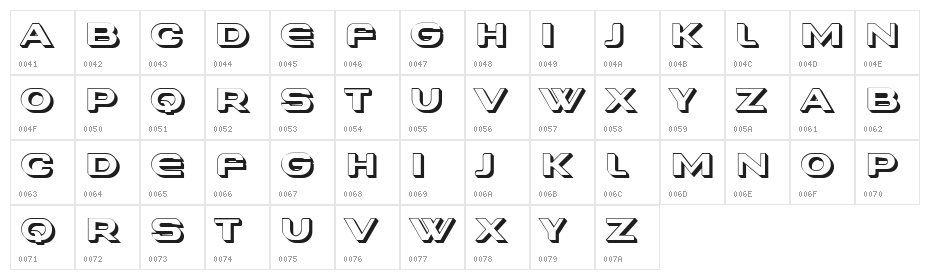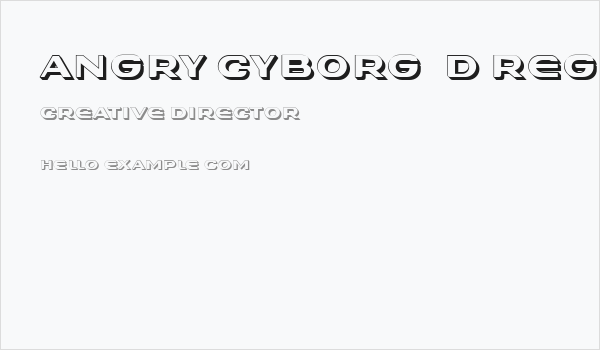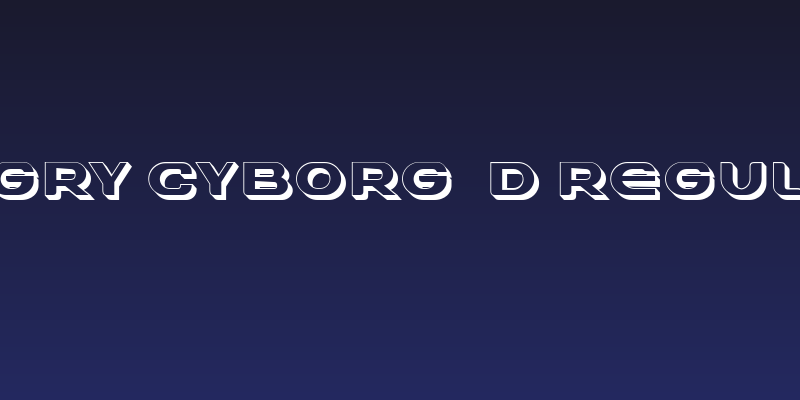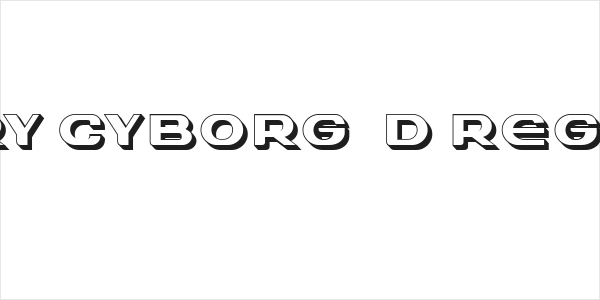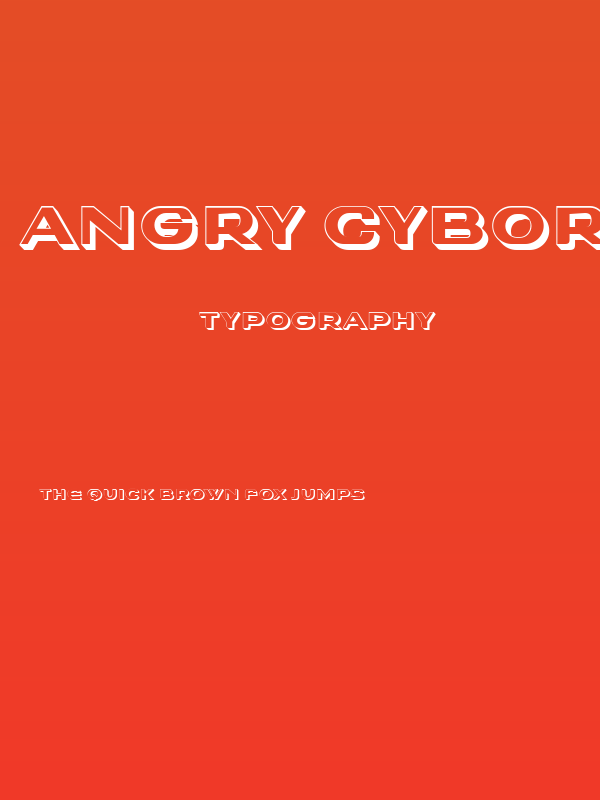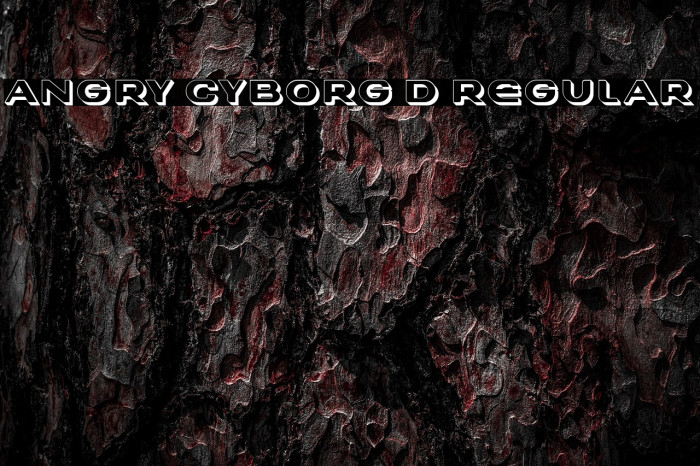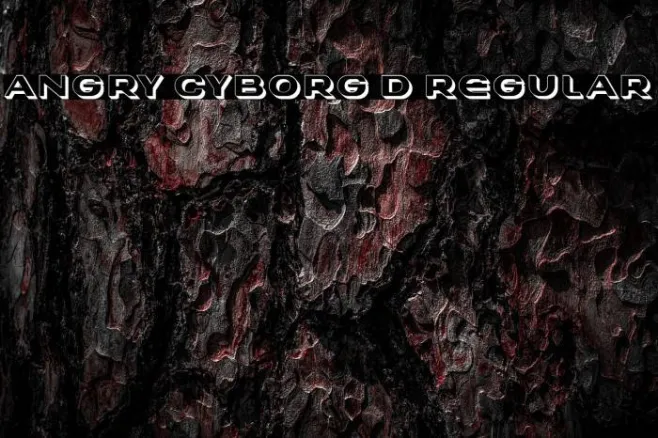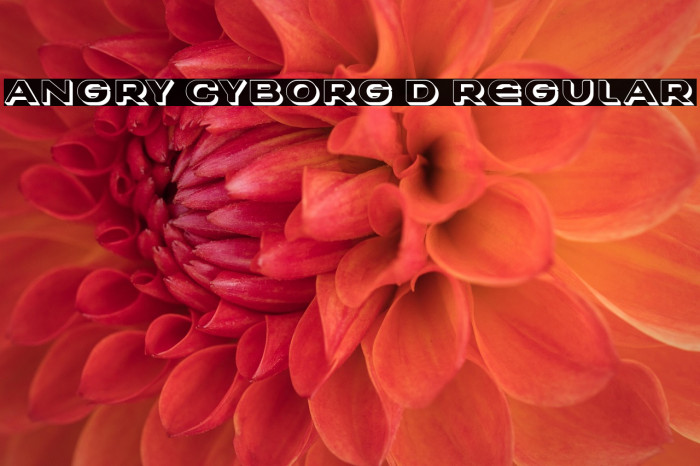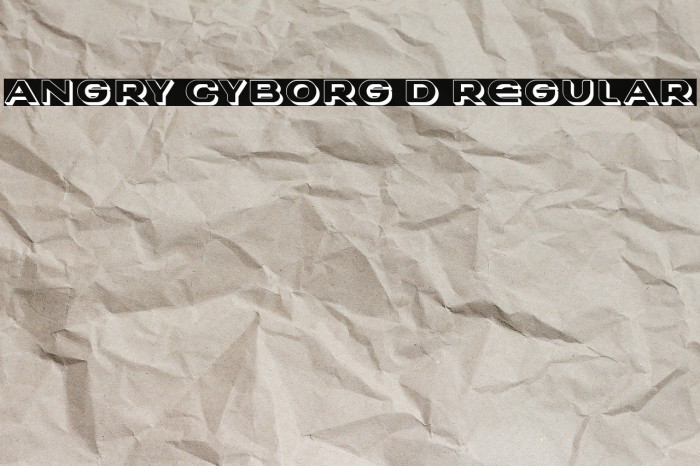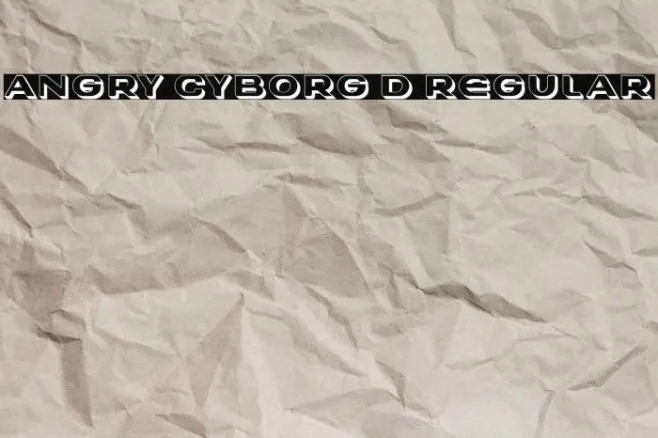
Angry Cyborg 3D Regular Font
Angry Cyborg 3D Regular Description
This font features a bold, futuristic design with a three-dimensional effect that gives it a striking appearance. The characters are constructed with sharp, angular lines and a shadow effect that enhances the 3D illusion. The uppercase letters are uniform in height, creating a cohesive look across the alphabet. The font's geometric style and strong presence make it ideal for projects that require a modern and impactful visual statement. Its unique design elements are perfect for capturing attention and conveying a sense of innovation and technology.
| Proposed Projects | Ideal for sci-fi themed posters, video game titles, technology branding, and futuristic event invitations. |